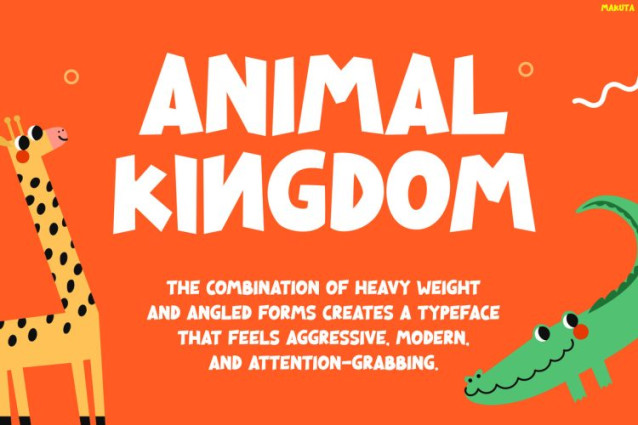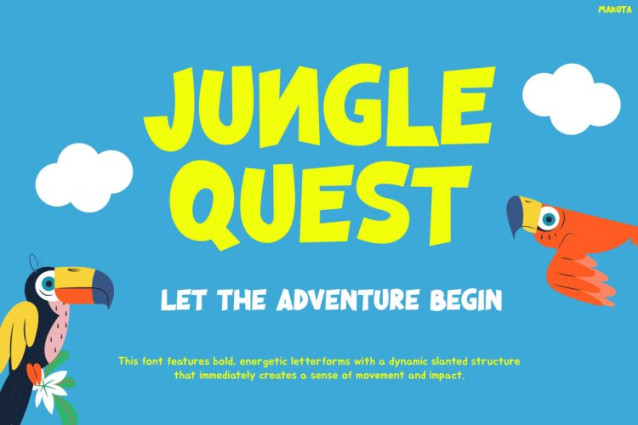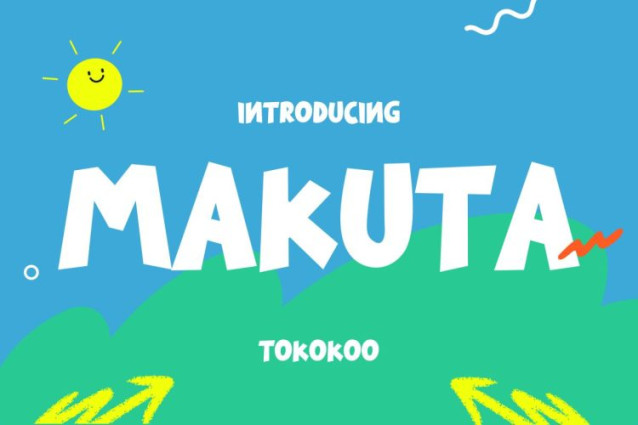
Makuta Font is a bold and playful display typeface created to bring excitement, color, and adventure into kids-themed designs. Its chunky letterforms, lively curves, and slightly irregular shapes give the font a fun and energetic personality. Because of its friendly and expressive structure, the typography instantly feels cheerful and engaging. As a result, headlines look vibrant, bold, and full of life. Moreover, the playful character of the letters adds a sense of imagination that fits perfectly with children’s themes like animals, jungle adventures, and dinosaurs. MAKUTA turns simple words into fun visual elements that capture attention and spark curiosity.
MAKUTA combines bold cartoon-style letterforms with soft organic shapes to create a dynamic and joyful display font. Each character is designed with thick strokes and playful proportions, giving the font a lively and expressive look. Therefore, the typography feels energetic while still remaining clear and readable.
Furthermore, Kids Font MAKUTA works beautifully in projects that require bright and adventurous visuals. For example, it is perfect for jungle-themed graphics, dinosaur posters, children’s park promotions, and playful educational materials. In addition, the bold shapes make the font stand out in colorful layouts, making it ideal for eye-catching headlines and fun branding. Because of this versatility, the font adapts easily to both digital and print designs.